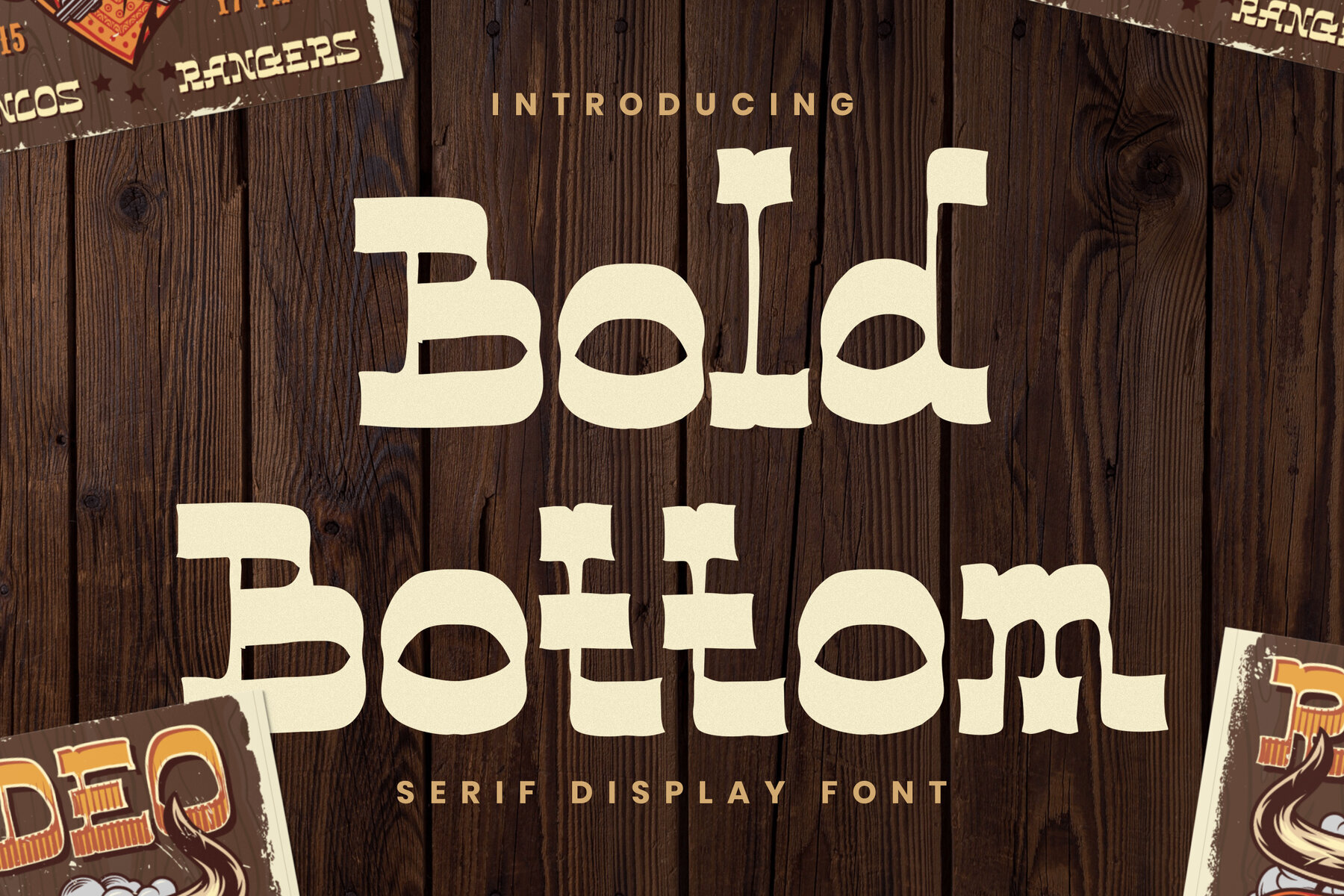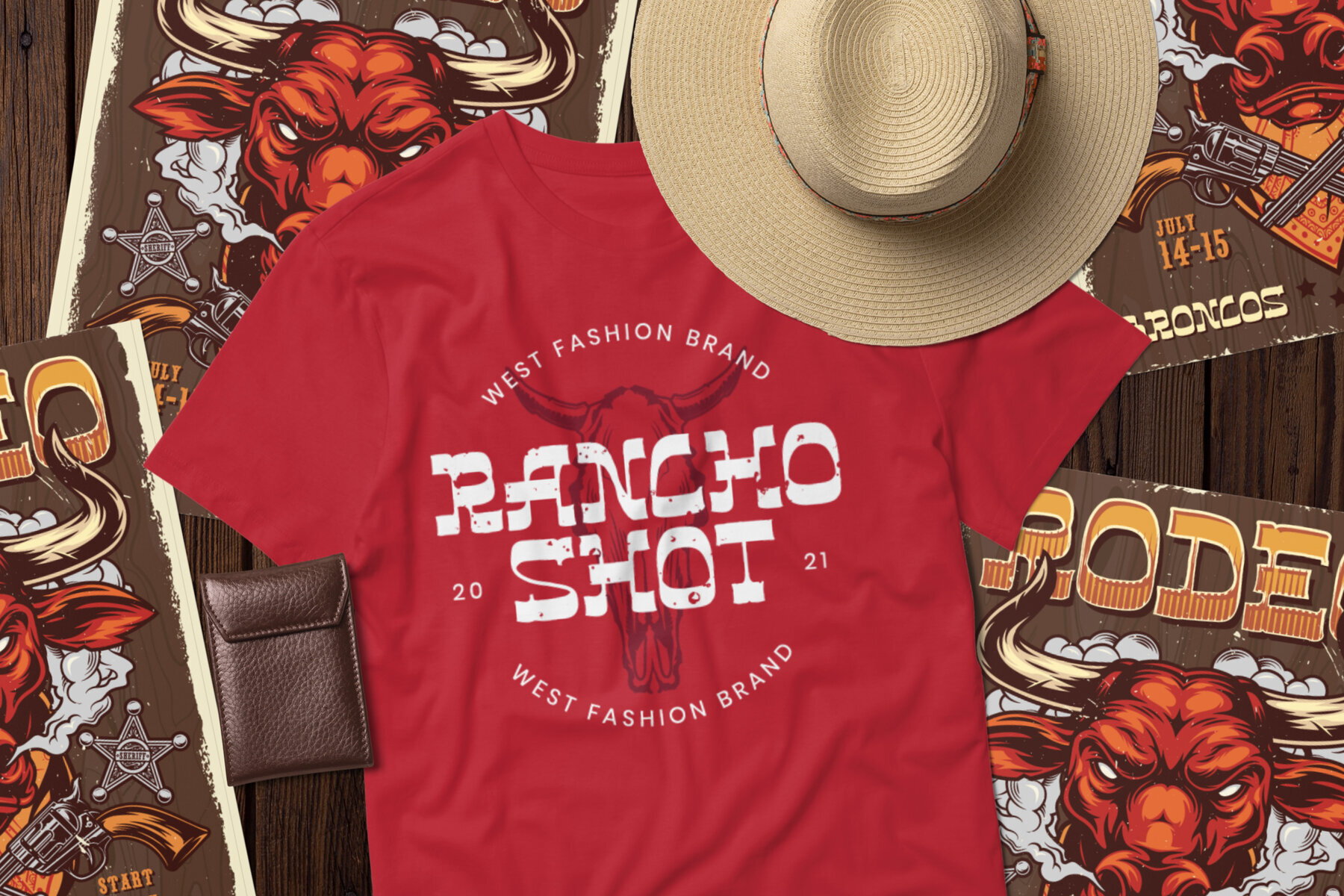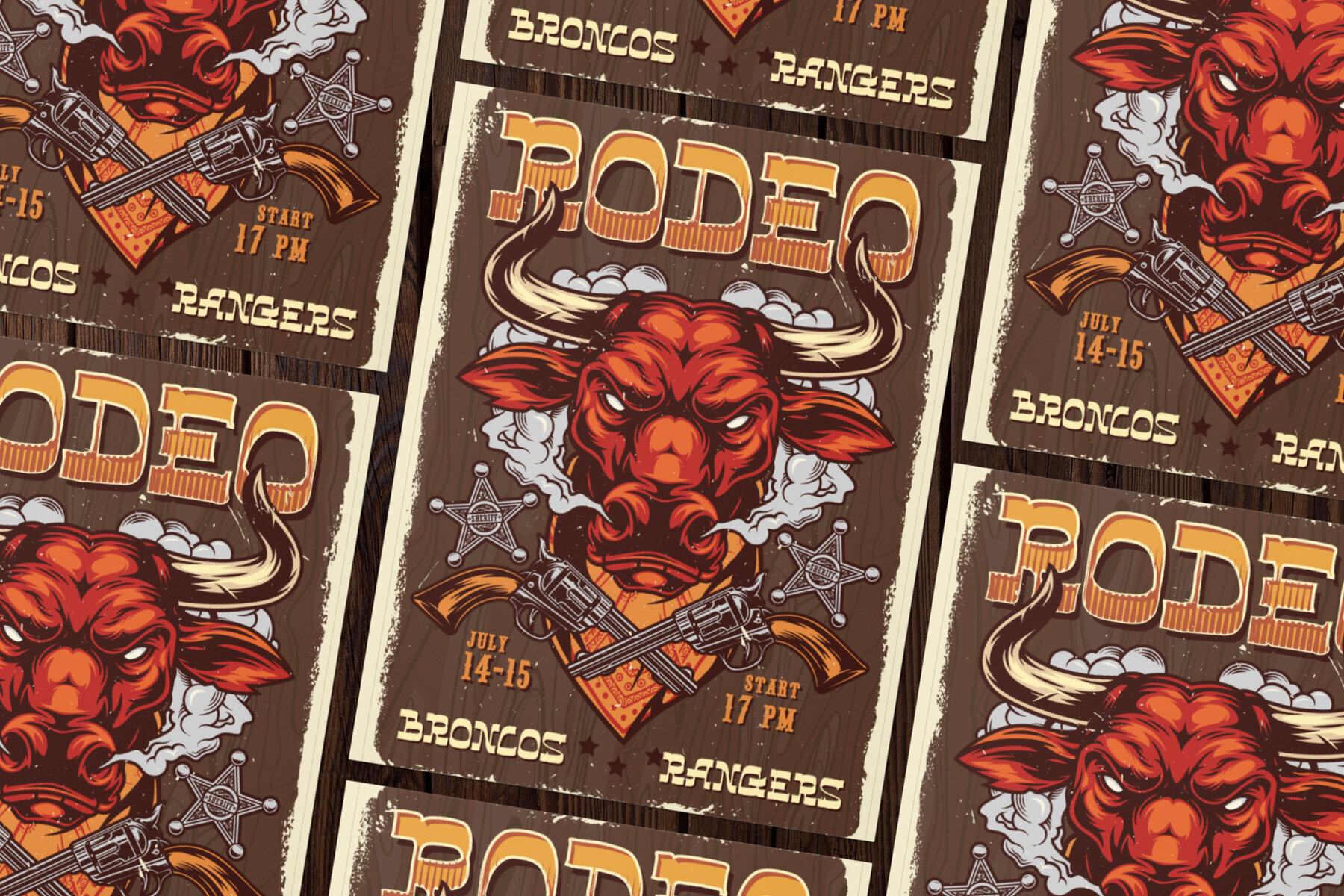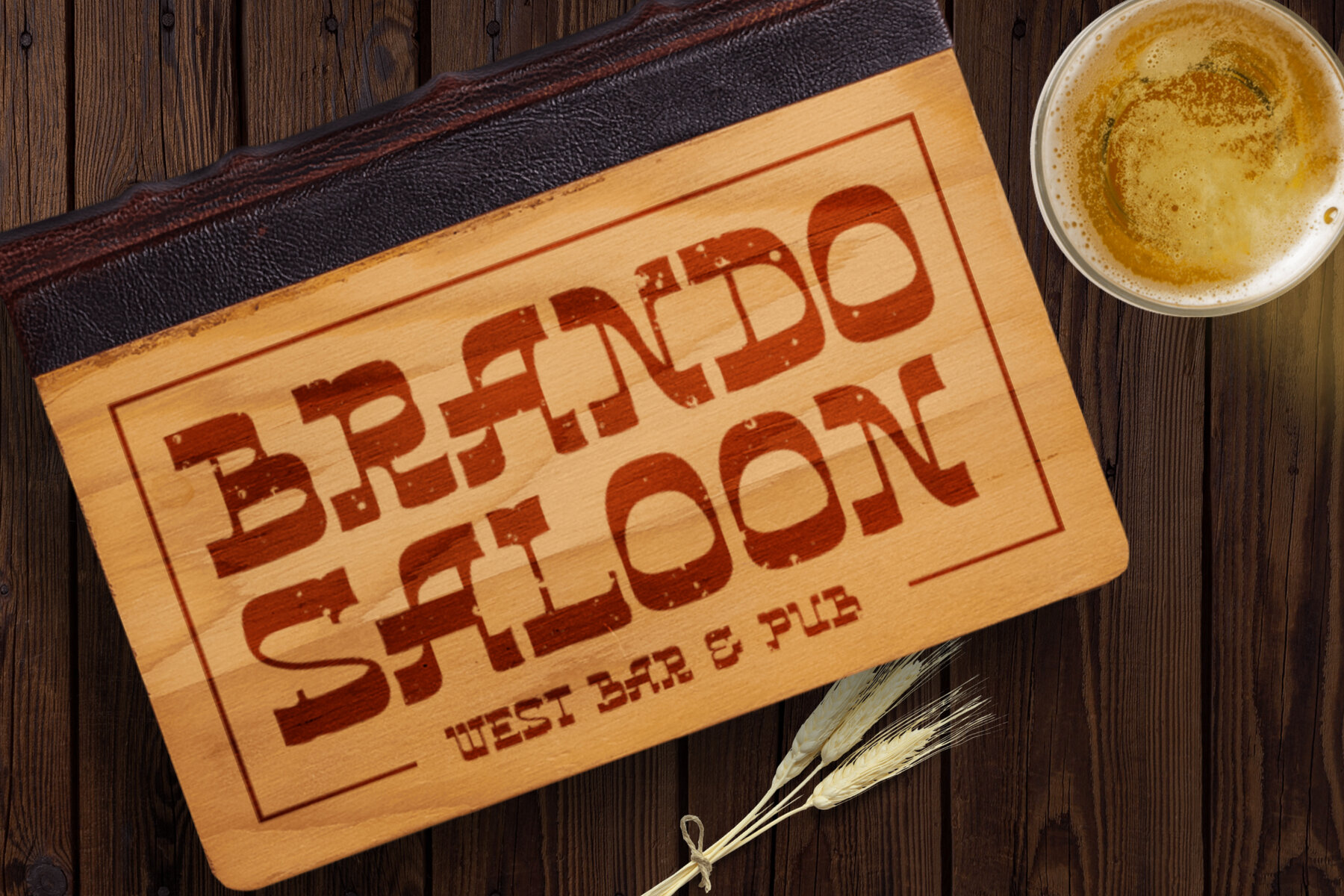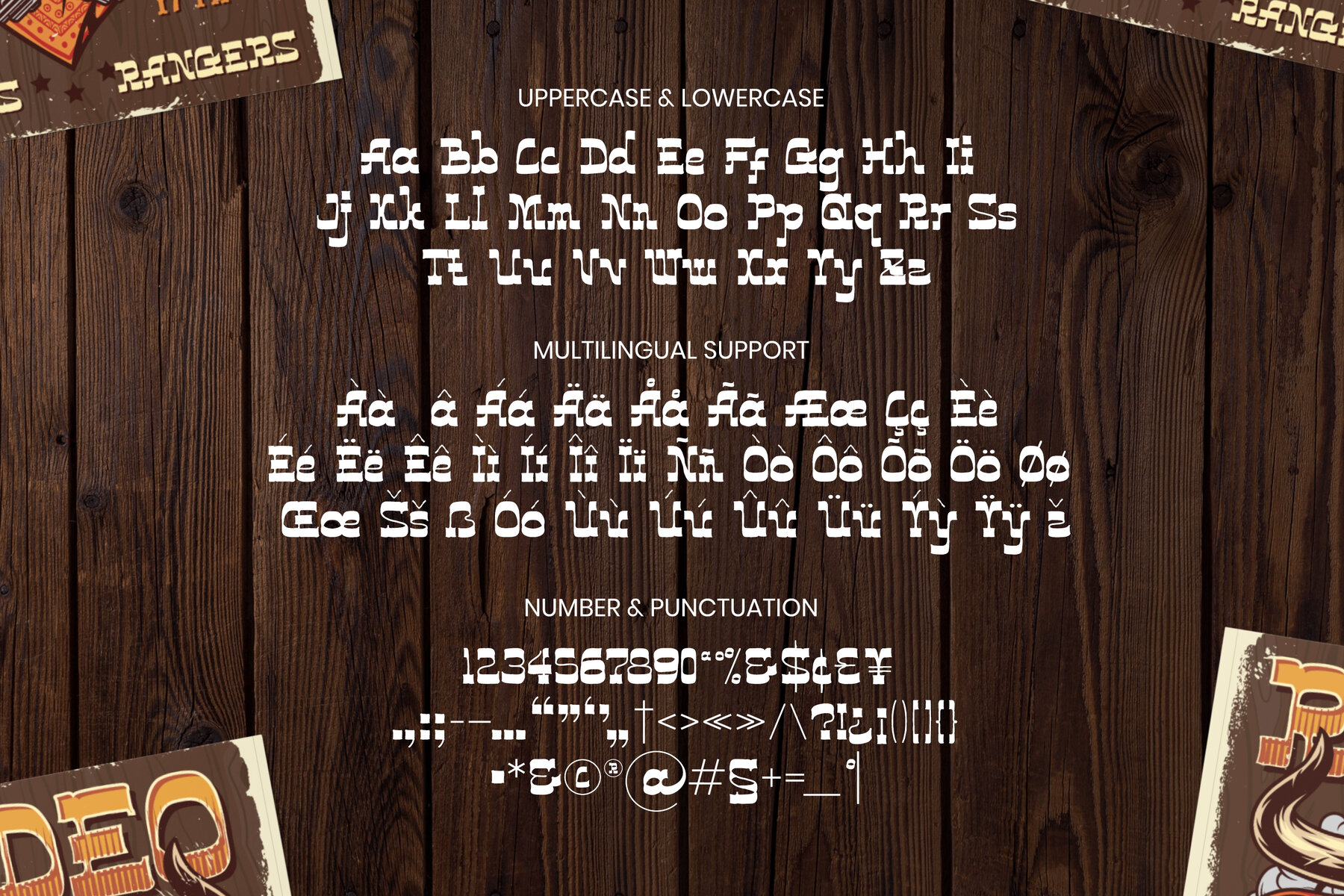
Bold Bottom Font
Bold Bottom
Bold Bottom brings the undeniable attitude of the Wild West to your creative projects. Inspired by vintage saloon signs and iconic rodeo posters, this serif display font is designed for designs that need a confident, grounded presence. Each character stands out with a distinctively bold baseline, blocky serifs, and playfully curled ascenders—giving your text a handcrafted, authentic edge. The font’s rugged silhouette works well on everything from beverage logos and apparel graphics to rustic menus and eye-catching posters. With its strong, deliberate strokes and unique letterforms, Bold Bottom adds unmistakable personality and nostalgic flair that feels both timeless and daring.Bold Bottom Serif Display Font